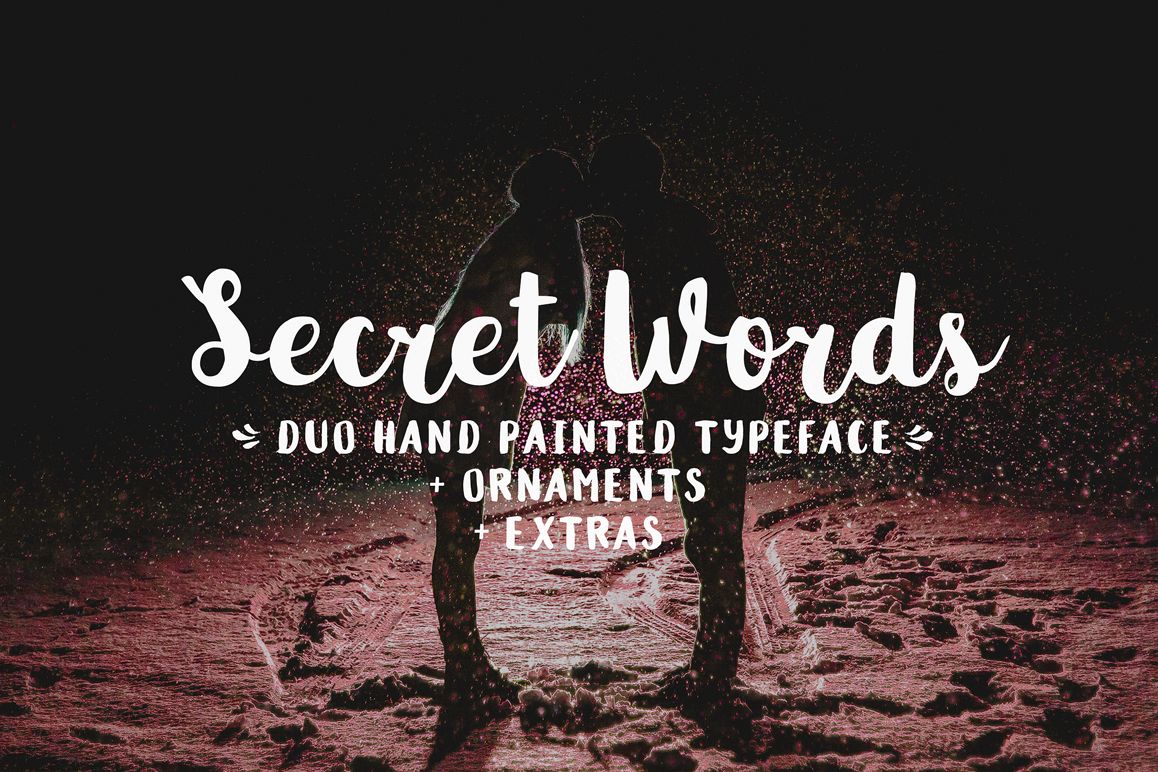
Secret Words Font Duo Bonus
Introducing Secret Words Font Duo - a hand brushed typeface, with a beautiful natural movement. So pretty on branding materials, blog headers, business cards, for wedding invitations, greeting cards, watercolor based design and more! It has a perfectly paired complimentary Secret Words Display Font, and Secret Words Extras - a cute handy set of bonus ornaments. Secret Words Script and complimentary Secret Words Fonts Family works in harmony with each other to create awesome and unique typographical design.
• Secret Words Regular and Slanted
• Secter Words Display Regular and Slanted
• Secret Words Extras